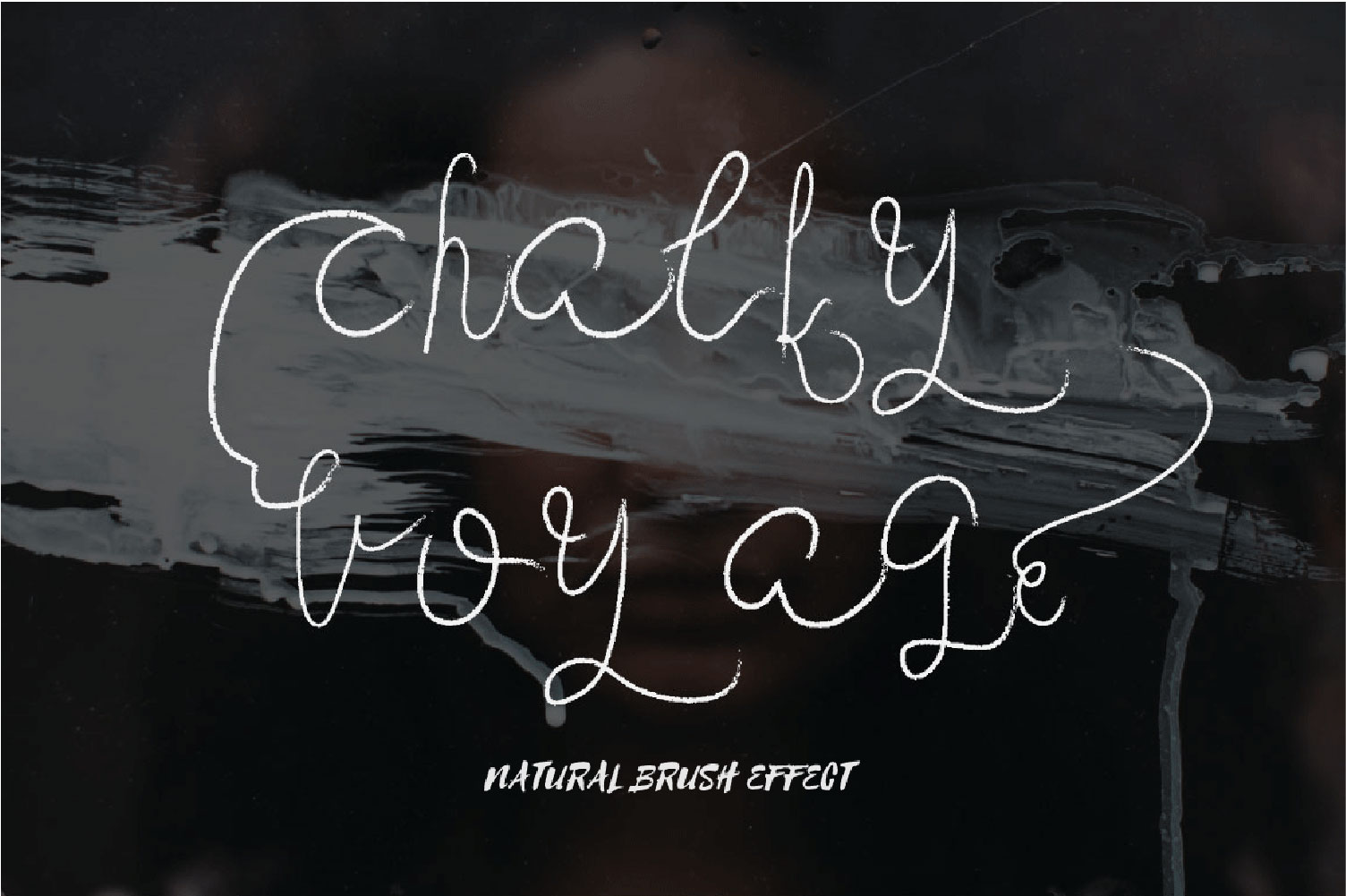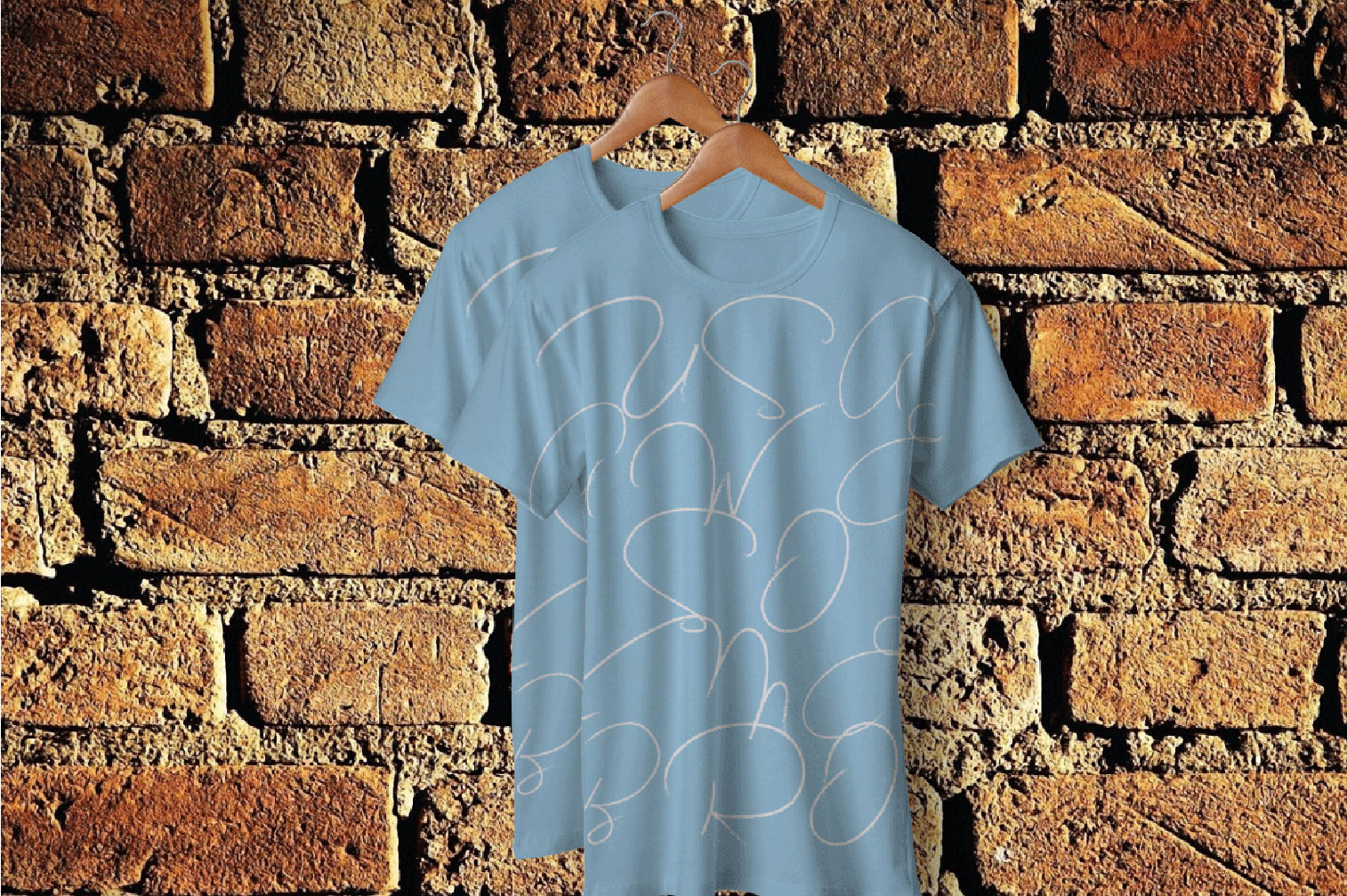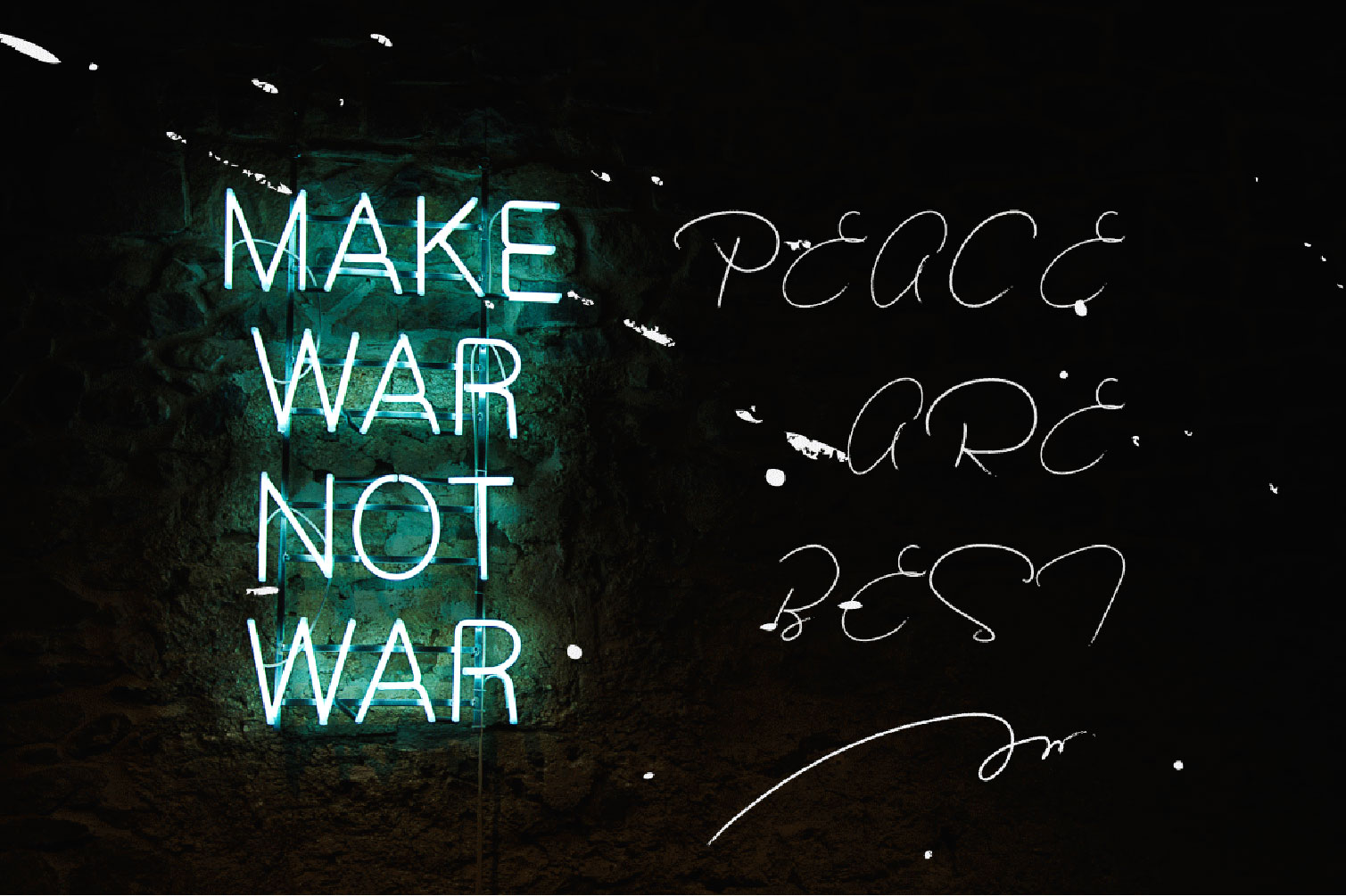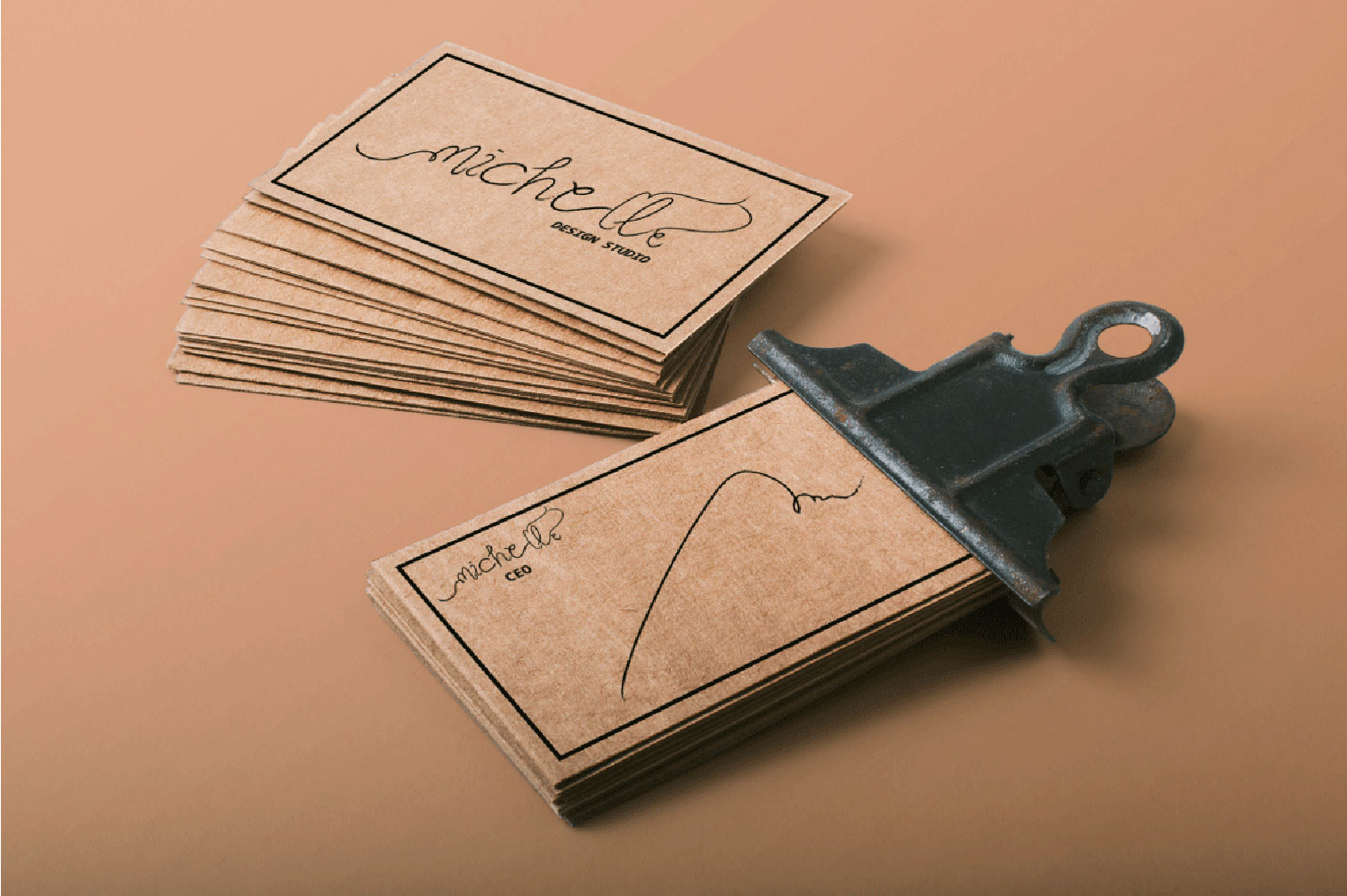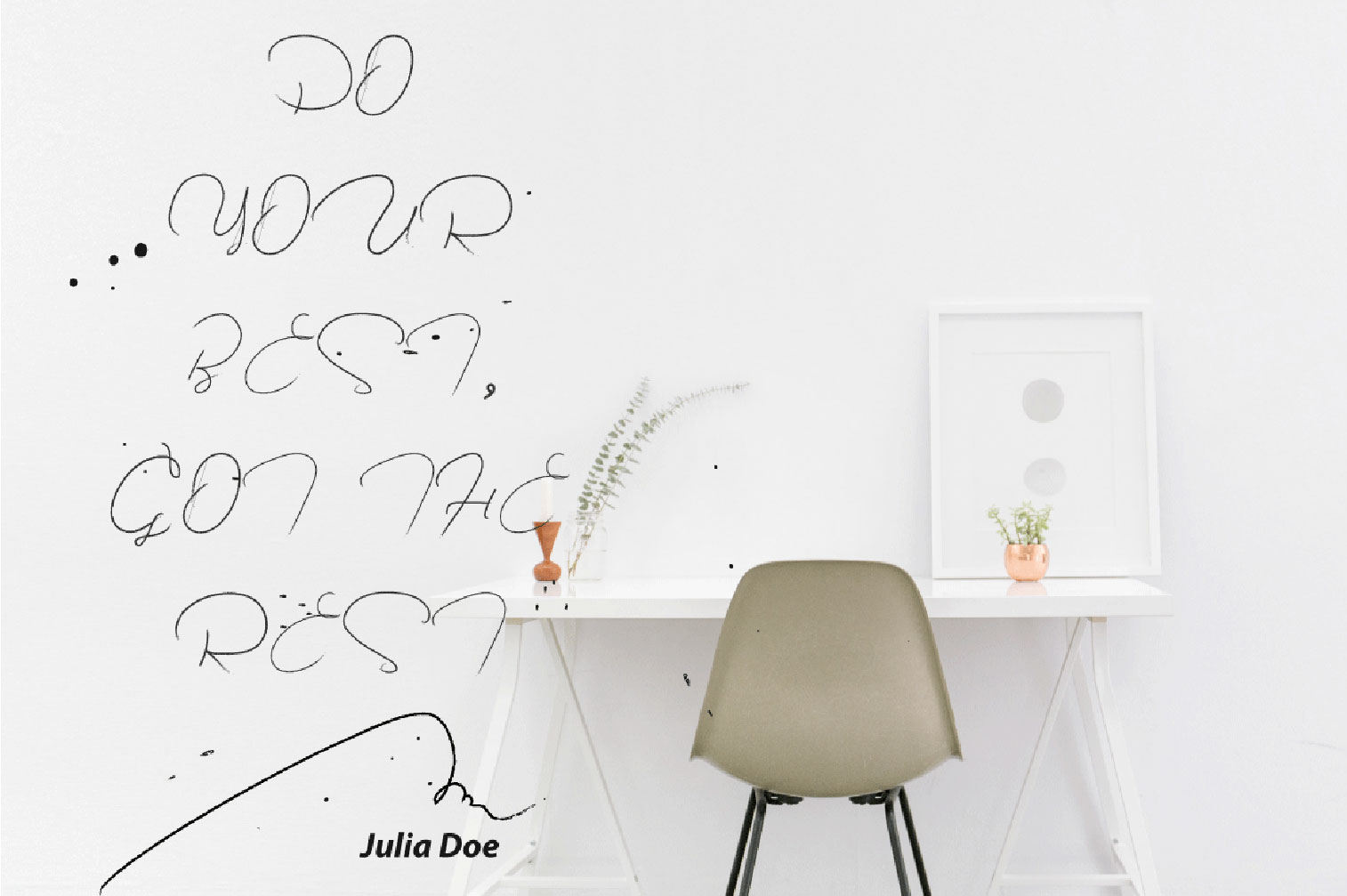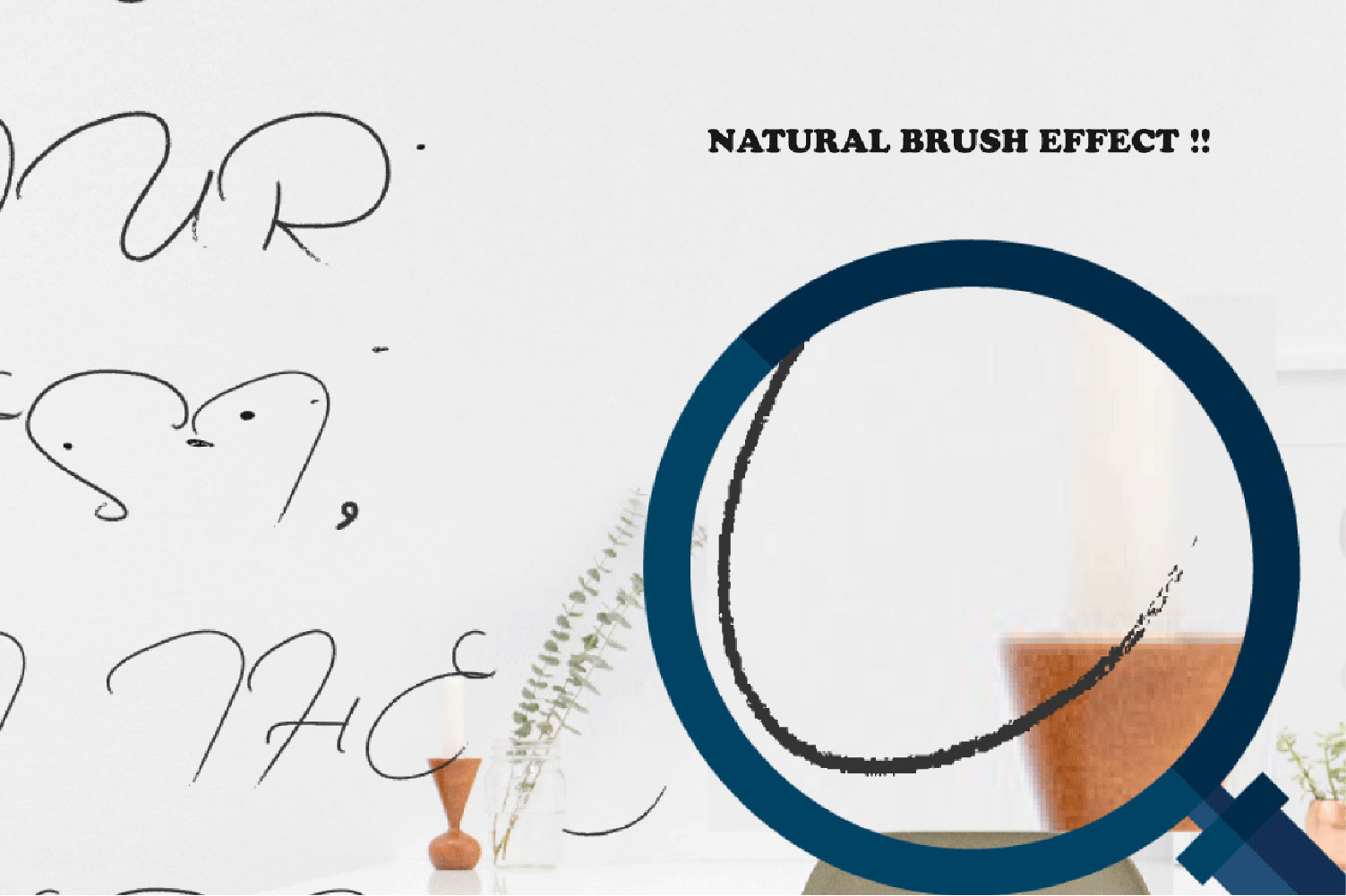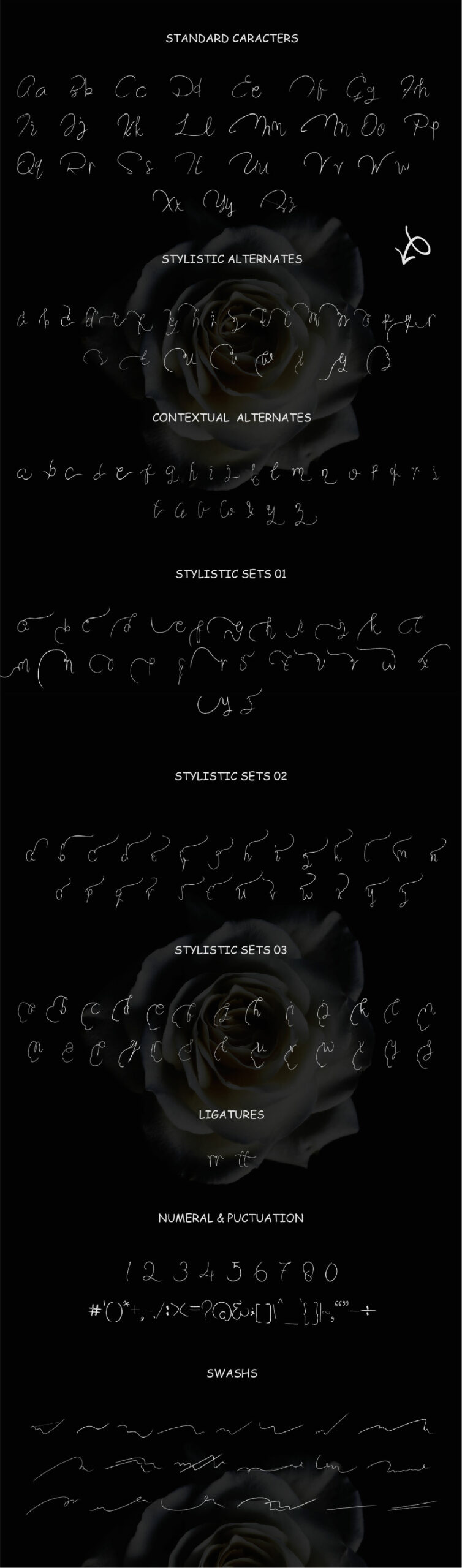
Chalky Voyage Font
About Chalky Voyage Font
Chalky Voyage is a handwritten script in a calligraphy style. This expressive font is perfect for creating designs that need a combination of impact and elegance.